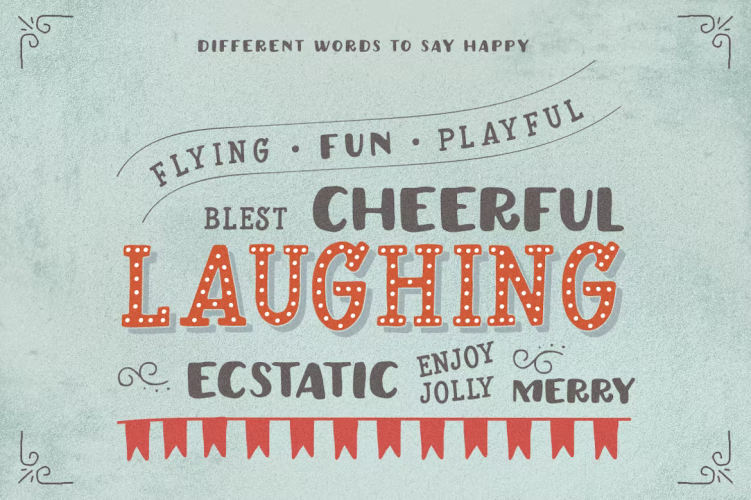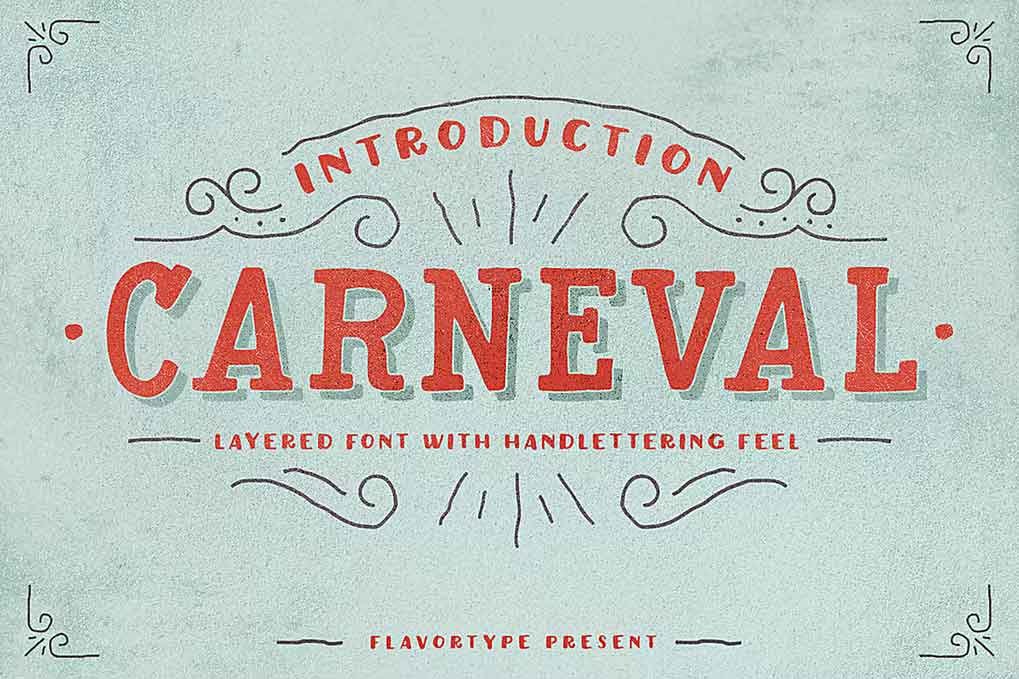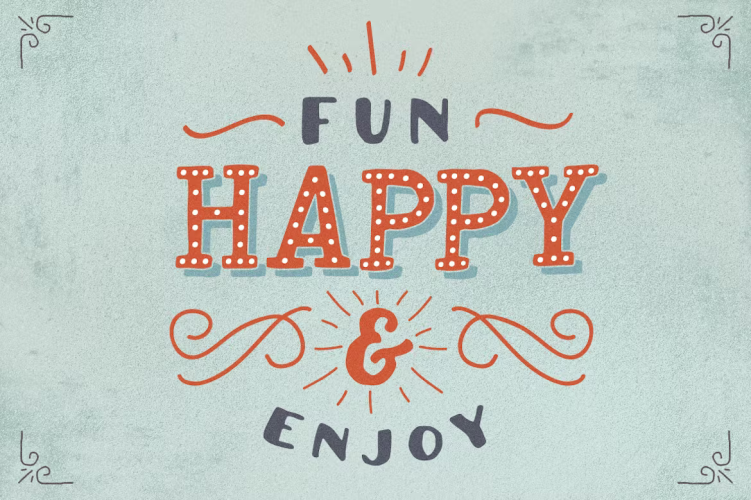
Carneval Font
Carneval everyone has experienced when was a childhood, who doesn’t like carnaval ? even today still many people who want to go there. —
Let us Introduce Carneval ! a double cheerful fonts that inspired by atmosphere of carnival. Comes with 2 styles that help each other to create fun scene like when you are in the best of happines. — What’s inside :
Carneval Layer : Created with 3 layered fonts, Carneval Bold as for basic fonts, Carneval Shadow is for the shadow, and the last is Carneval Dot for stored at the top of layer.
Carneval Normal/Regular with shorter height and more chubby Huge vector set with carnaval theme “Why you so serious ?” this words translating the language of carneval. This obviously sets for your playful design, out of boundaries, enjoyed content and many more !
Fun and Enjoy with Carneval !